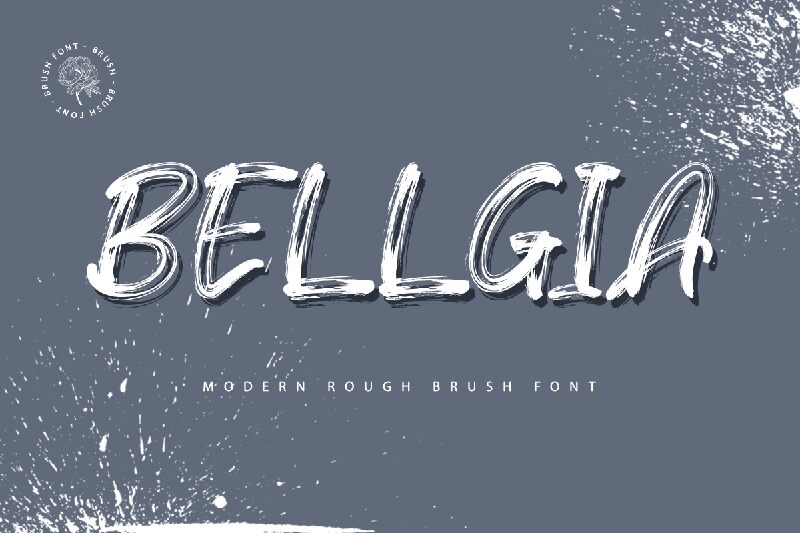
Bellgia
Bellgia by Kong Font is a captivating brush-style font that exudes a dynamic, handcrafted flair. Its fluid strokes and organic texture evoke a sense of authenticity and artistry, making it a compelling choice for projects seeking a distinctive, expressive aesthetic. The font's bold, confident lines and elegant curves harmonize to create a visually striking, emotive typeface that command attention.
Bellgia's versatility shines through its ability to seamlessly transition between playful, energetic designs and sophisticated, refined applications. Its versatility allows it to thrive in a diverse range of contexts, from editorial layouts and branding initiatives to product packaging and social media content, empowering designers to infuse their work with a captivating, handcrafted flair.